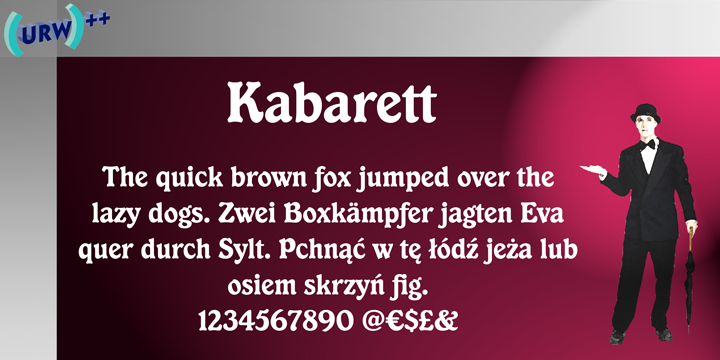
Kabarett Font is perfect for theater poster design, cabaret show promotions, burlesque event advertising, vintage entertainment branding, jazz club signage, vaudeville revival marketing, speakeasy bar logos, art deco inspired layouts, theatrical program covers, and roaring twenties themed campaigns. Its dramatic performance character makes it ideal for projects requiring theatrical flair and entertainment industry glamour.
What makes Kabarett Font exciting is its captivating embodiment of theatrical drama and cabaret sophistication with bold strokes and expressive letterforms that transport viewers to the golden age of live entertainment and stage performance artistry. The font features dramatic contrast, artistic flourishes, and expressive character details that create authentic theatrical atmosphere and vintage entertainment appeal. Its performative personality brings excitement and artistic energy to contemporary designs while maintaining the craftsmanship quality of traditional theatrical typography. The carefully crafted dramatic elements ensure visual impact while preserving the distinctive character that captures the essence of live performance and entertainment industry glamour.
Kabarett Font comes in multiple theatrical variations including Regular, Bold, Light, Condensed, and Decorative styles. Each family member enhances the distinctive performance character while offering comprehensive flexibility for entertainment typography and theatrical brand system development. The complete font family includes stylistic alternates, entertainment symbols, and decorative flourishes that provide extensive tools for creating immersive theatrical design experiences and authentic entertainment brand storytelling.
Whether you're developing entertainment brands, theatrical productions, or vintage-inspired projects, Kabarett Font Free Download delivers the dramatic flair needed to captivate audiences seeking authentic theatrical experience and entertainment industry sophistication. The font's performative appeal works magnificently for both traditional theater applications and contemporary designs seeking vintage entertainment character. Its extensive character set includes theatrical symbols and entertainment marks, making it perfect for creating complete cabaret brand systems and memorable theatrical storytelling across diverse entertainment applications and performance-inspired design projects that celebrate artistic expression and dramatic presentation excellence.